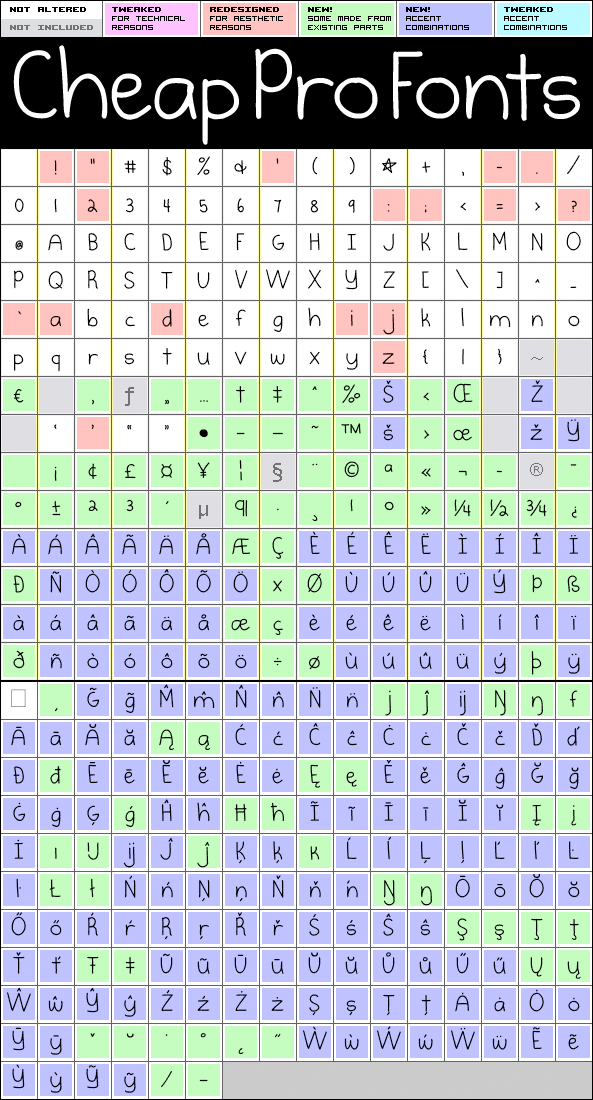
Burst My Bubble Pro
Burst My Bubble Pro by Kimberly Geswein
Designer:
Kimberly Geswein
Highlights:
378 glyphs!
(98 in original)
621 class kernpairs
= 12640 kerning pairs
(none in original)
OpenType features:
Contextual letterforms
(see "images" below)
and
Stylistic Alternates
SS01/SS02
Description:
This font has been described as "one of the cutest fonts I've ever seen. I can imagine a beautiful, young 22-year-old fashion design student from Los Angeles, CA with this handwriting as she's writing in her journal. :)"
I have cleaned it up a bit, increased the size of all the dots slightly and then designed all the diacritics and expanded the character set. The lowercase "f" has a big overhang and the lowercase "j" goes really far to the left - I have programmed automatic (OpenType) Contextual Alternate versions that automatically substitute with shorter variants when letters collide. These alternate letters can also be switched on using the OpenType palette's Stylistic Alternates or Stylistic set 01 ("j") and 02 ("f").
Burst My Bubble Pro is a professionally reworked font that contains an extended character set for setting text in 65 languages requiring more than the basic A-Z!